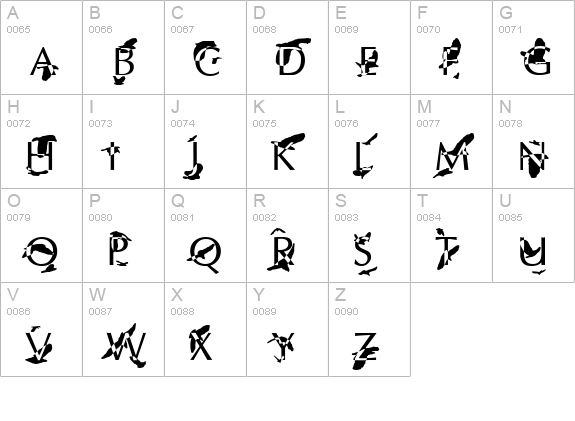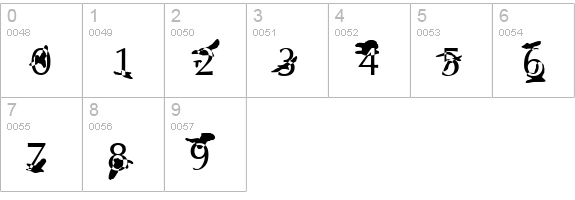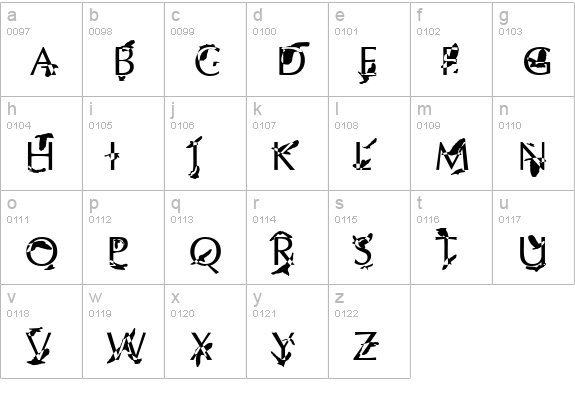
The Birds Font Details
The Birds font captures the essence of freedom and grace, inspired by the beauty and elegance of birds in flight. Its delicate yet bold strokes evoke a sense of movement and sophistication, making it perfect for adding a touch of whimsy to your designs. This unique typeface is freely available to download at FontsMarket.com, allowing you to bring a touch of avian charm to your projects with ease. Embrace the spirit of The Birds font and let your creativity take flight.